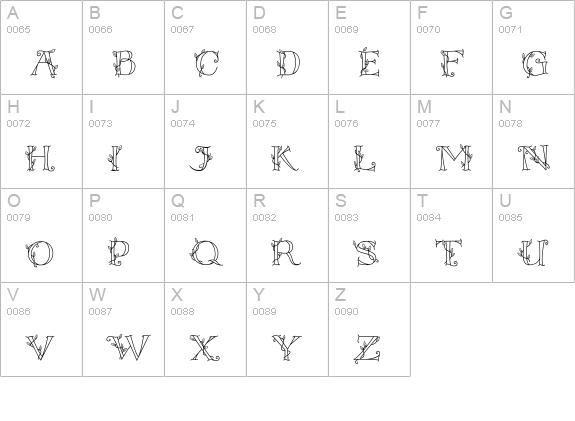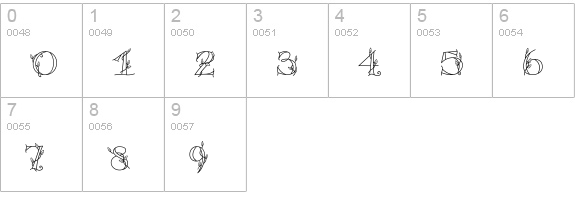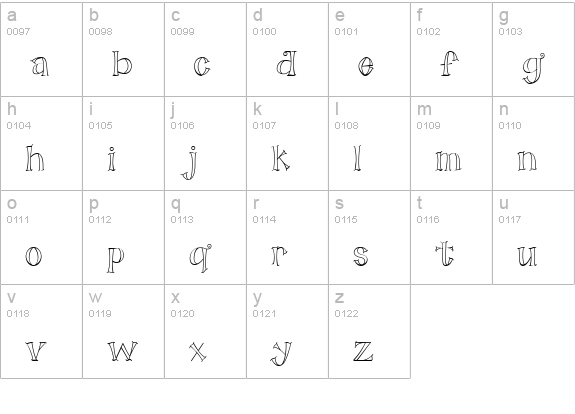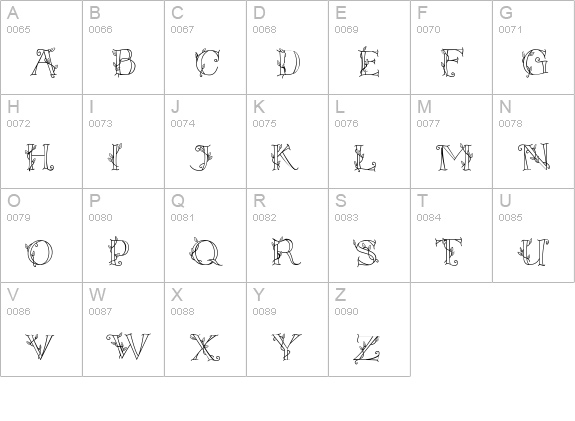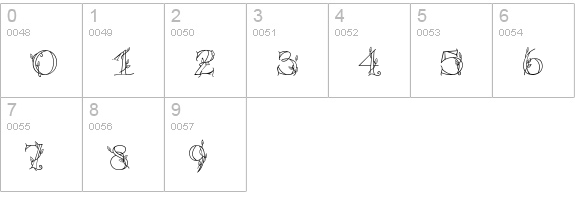
CK Leafy Capitals Font Details
Introducing CK Leafy Capitals, a beautifully crafted font that exudes elegance and sophistication. With its intricate leafy design and stylish capital letters, this font is perfect for adding a touch of nature-inspired charm to your projects. Whether you're designing invitations, branding materials, or packaging, CK Leafy Capitals will elevate your creations to new heights. And the best part? CK Leafy Capitals is completely free to download at FontsMarket.com! Take advantage of this incredible offer and enhance your designs with this stunning font today. With its unique aesthetic and versatile usage, CK Leafy Capitals is sure to become a favorite in your font collection. Download it now and let your creativity flourish!